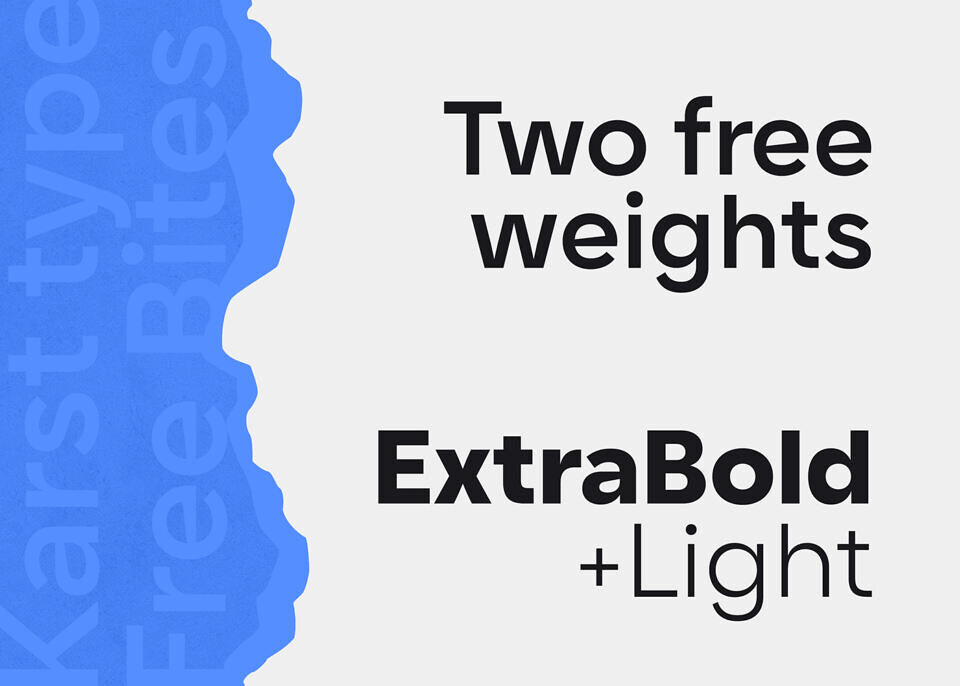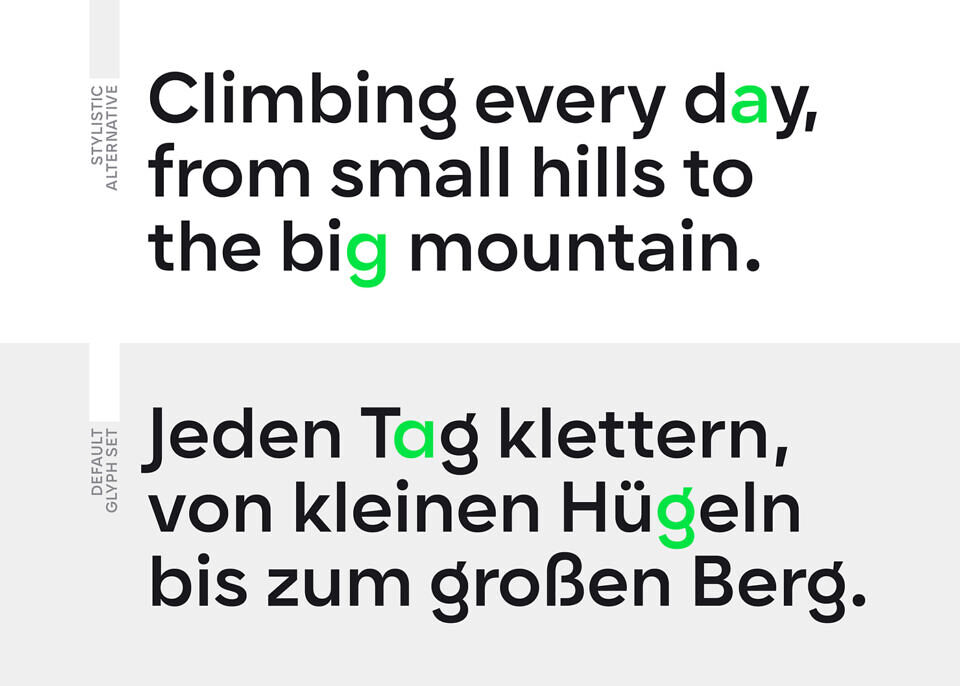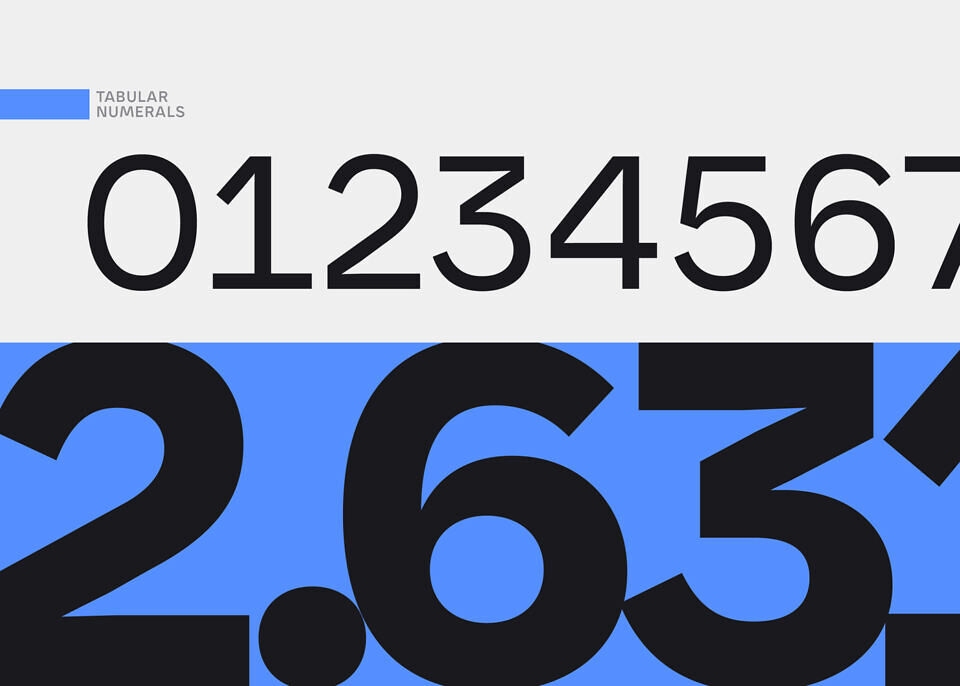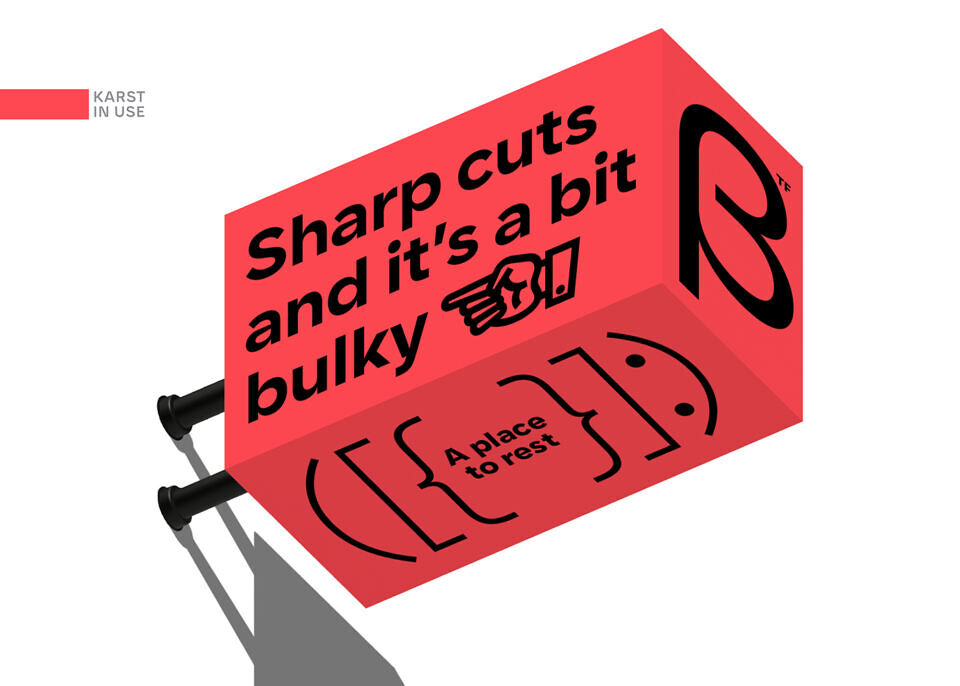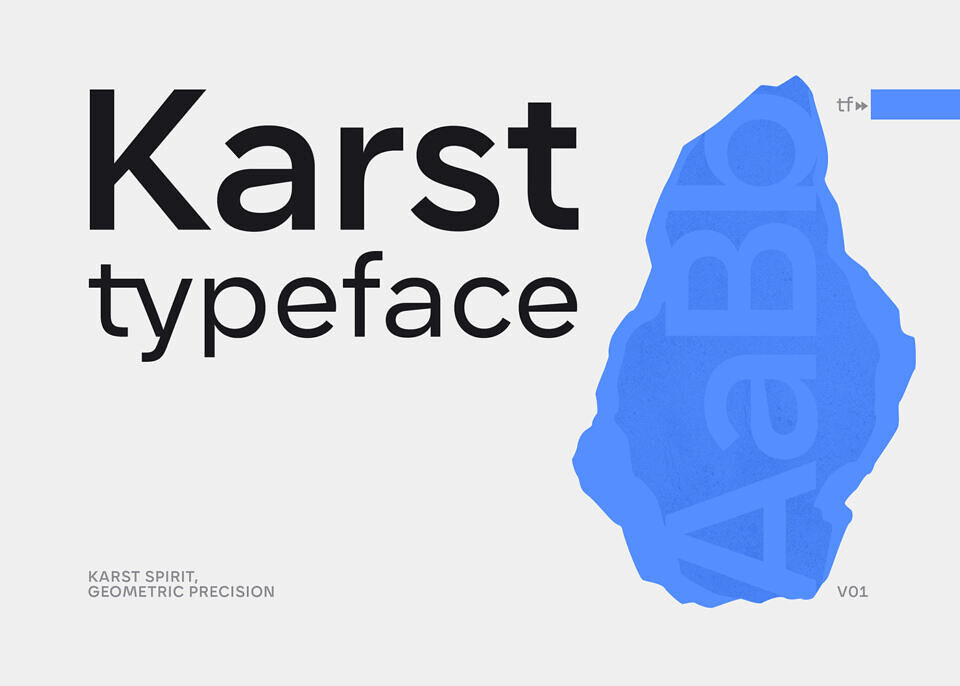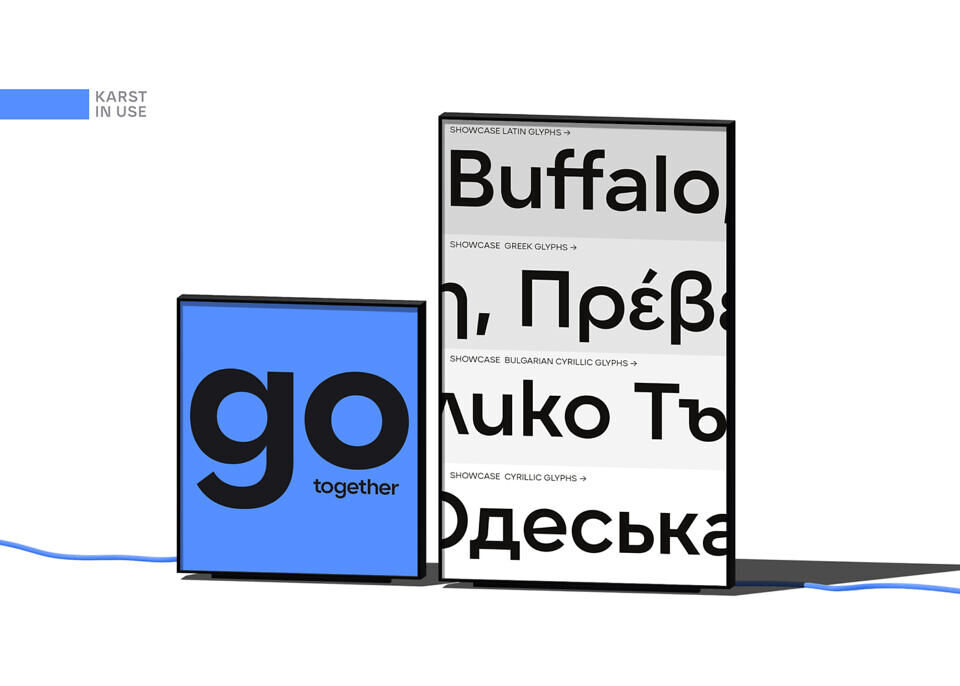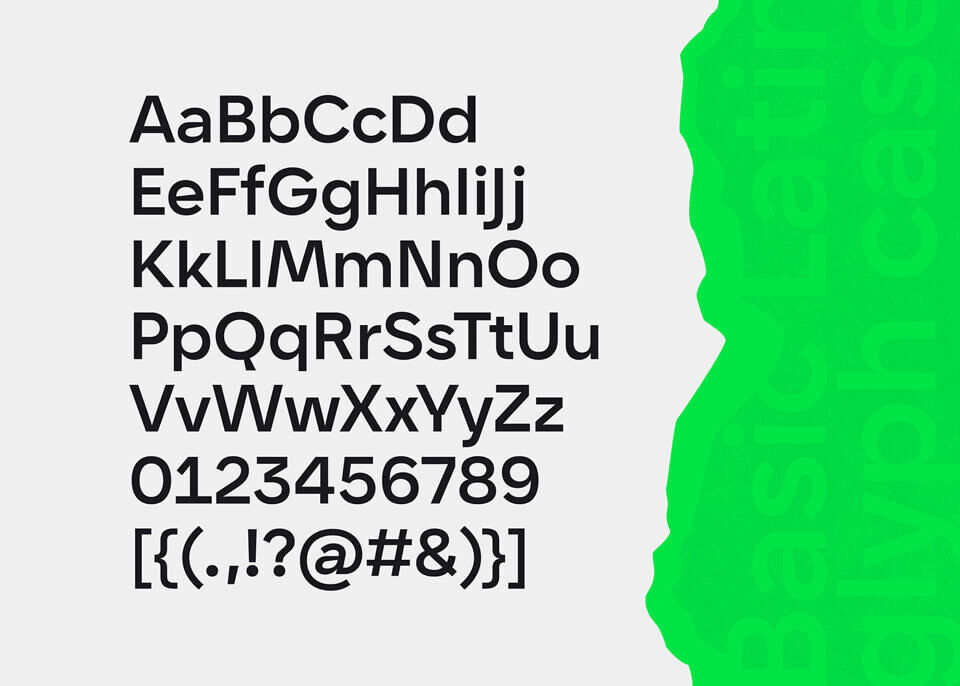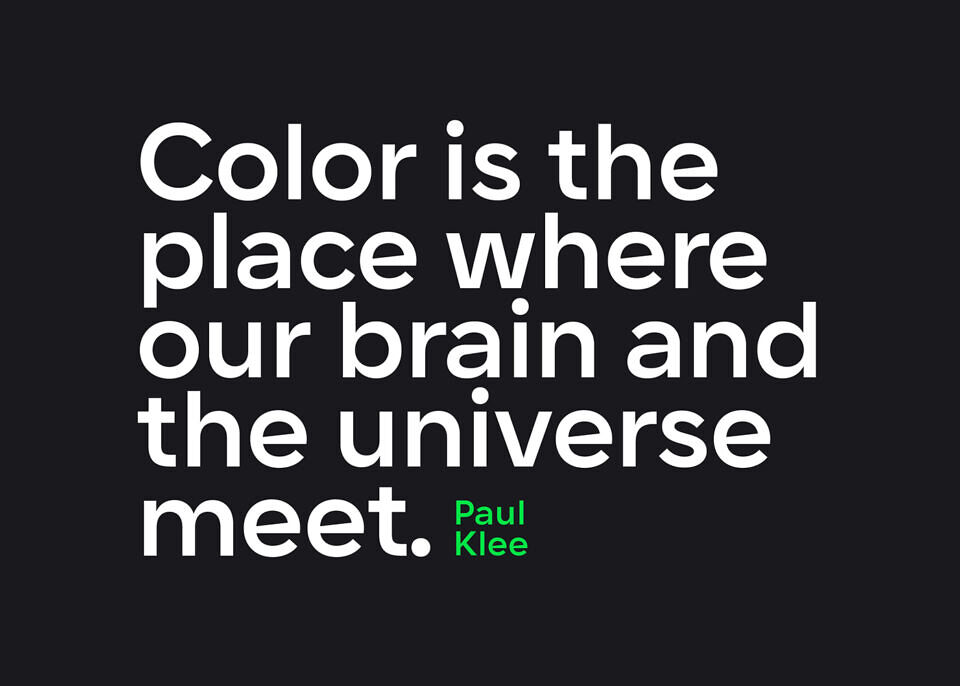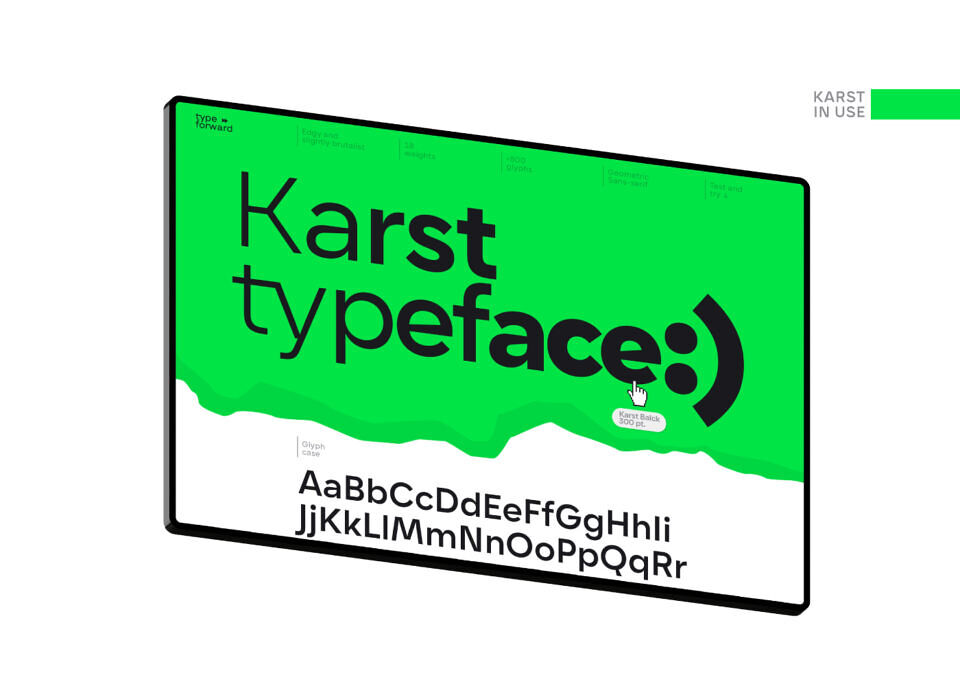
Karst Font
Karst is a geometric sans-serif typeface characterized by precise angles and contemporary shapes. Combining geometric clarity with subtle angular details, Karst achieves excellent readability through its high x-height, open letterforms, and minimal contrast between horizontal and vertical strokes. This makes Karst effective in both headlines and body text.
The typeface draws inspiration from Karst landscapes—natural geological formations known for their distinctive combination of smooth curves and sharp edges. This interplay of softness and angularity is clearly reflected in Karst’s design, notably through the sharply defined diagonal cuts and blunt endings in letters such as “A,” “Y,” “K,” “M,” and “V.” The horizontal bars in lowercase letters like “e” and “a” also feature angled terminals, contributing a subtle visual uniqueness.